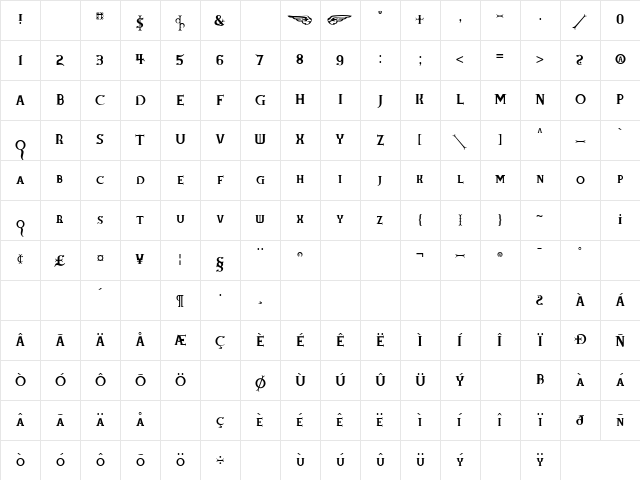
BadAngel Saint Free Font
BadAngel Saint
Style: Saint
BadAngel Family
Design Context for BadAngel
BadAngel is a composed and adaptable typeface that performs quietly and consistently across a wide range of design contexts.